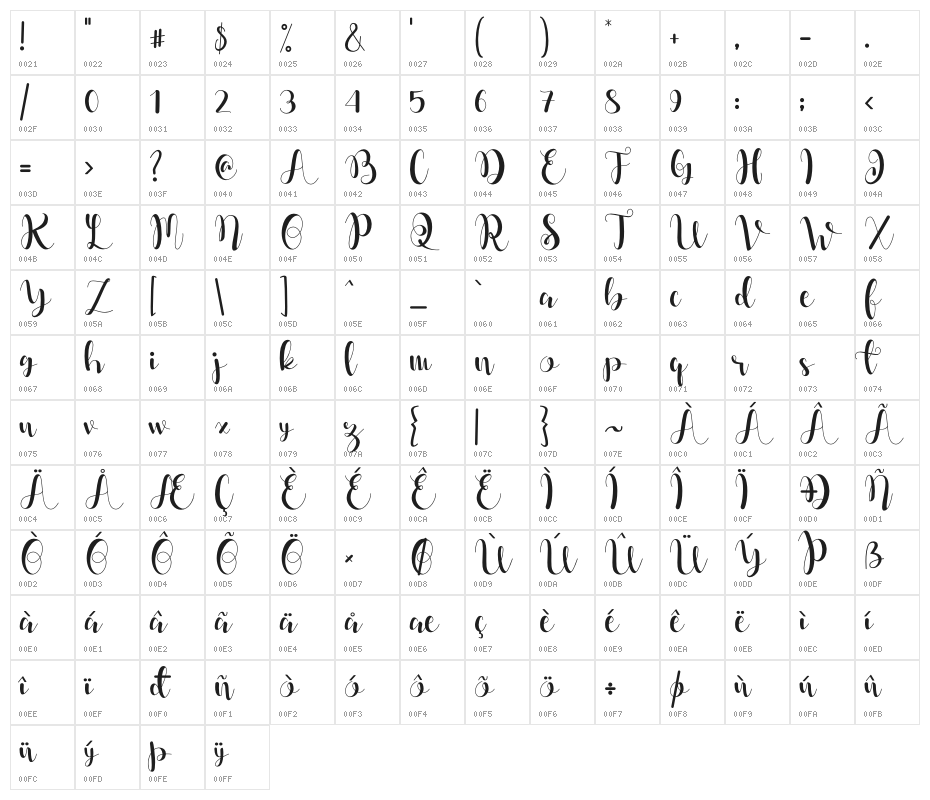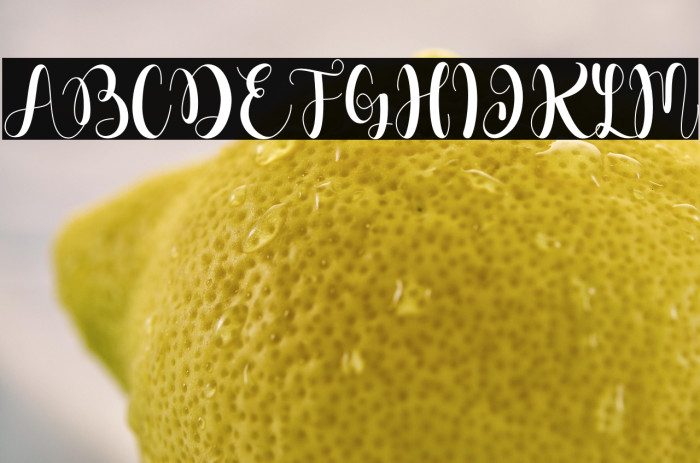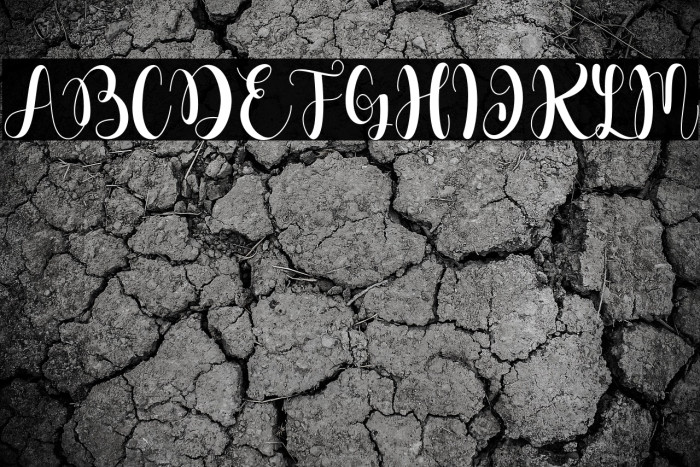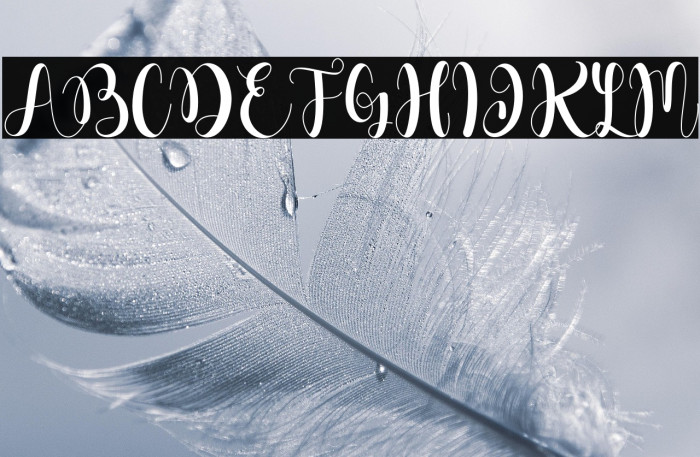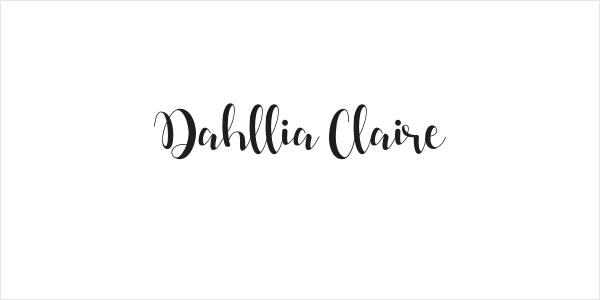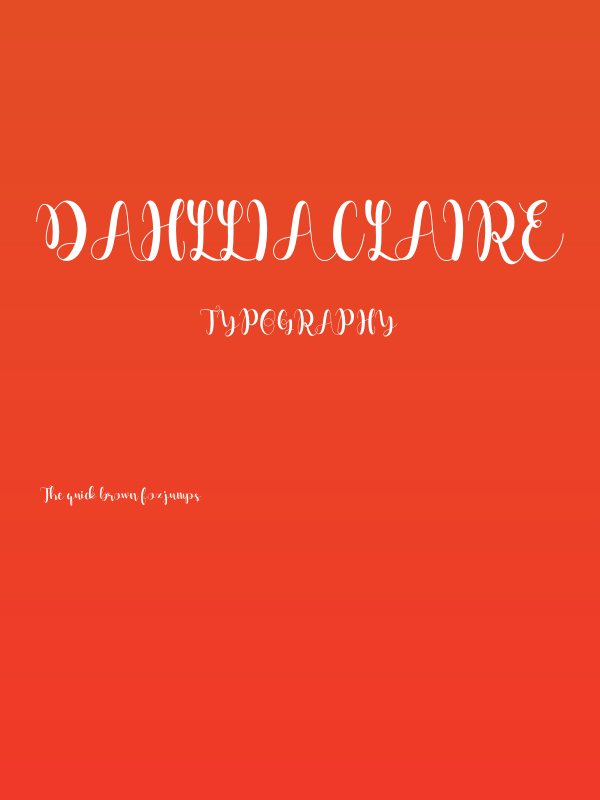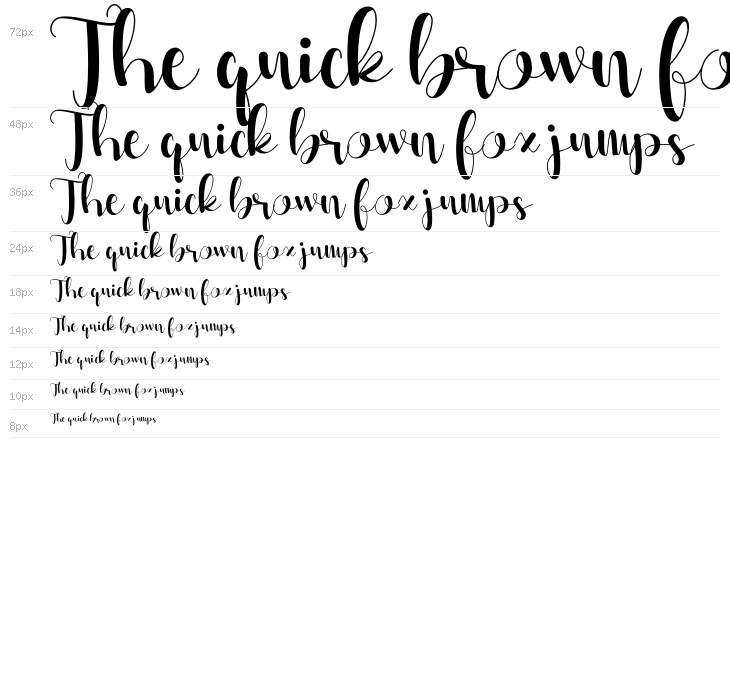
Dahllia Claire Font
Dahllia Claire Description
This font features an elegant and flowing script style, characterized by its smooth, cursive lines and intricate loops. The uppercase letters are bold and ornate, with a distinct flair that adds a touch of sophistication. The lowercase letters maintain a consistent flow, enhancing readability while retaining an artistic flair. Numbers and special characters are designed to complement the overall style, ensuring a cohesive look across all text. The font's design is perfect for creating a sense of elegance and charm, making it suitable for a variety of creative projects.